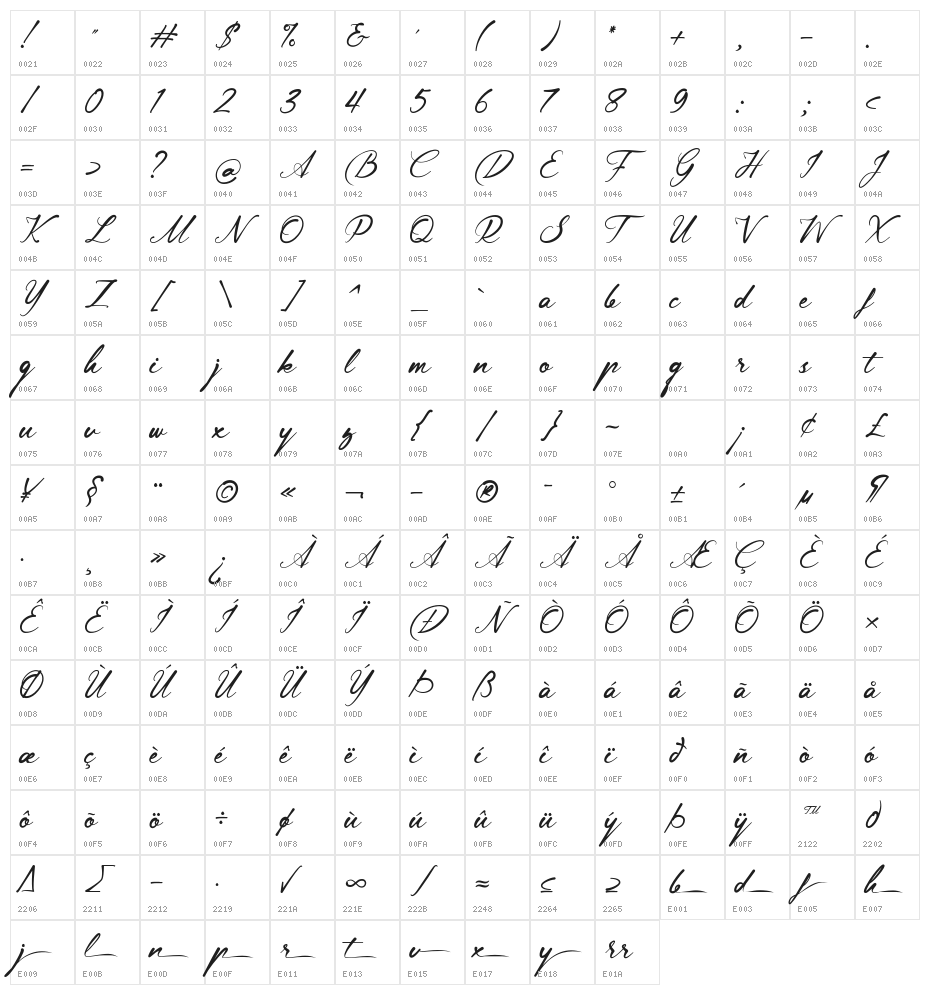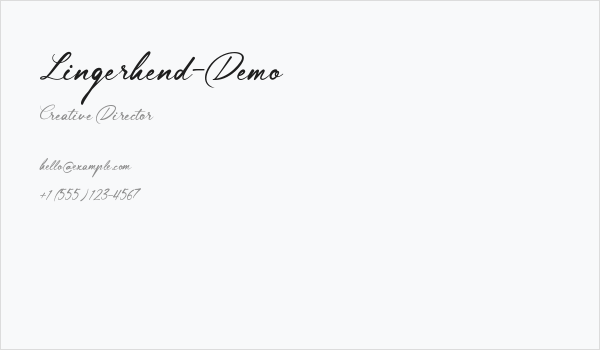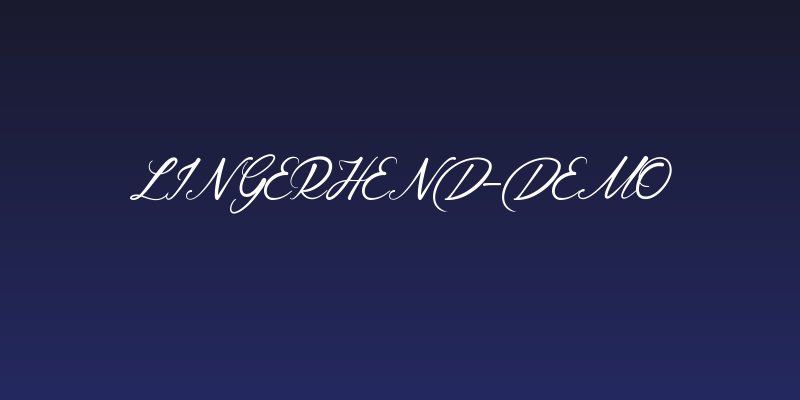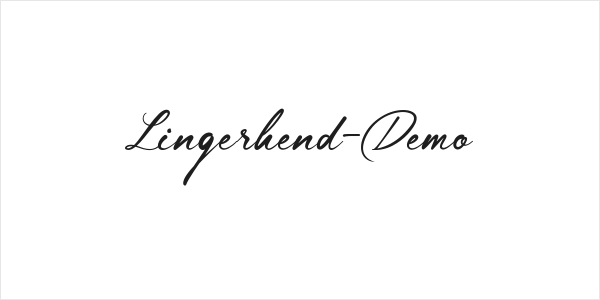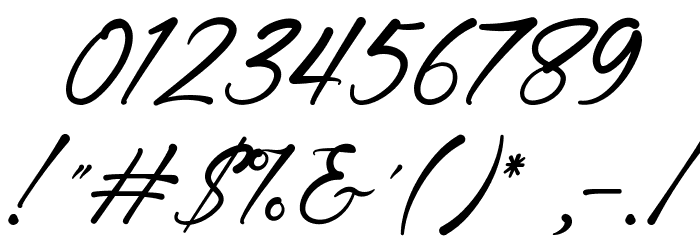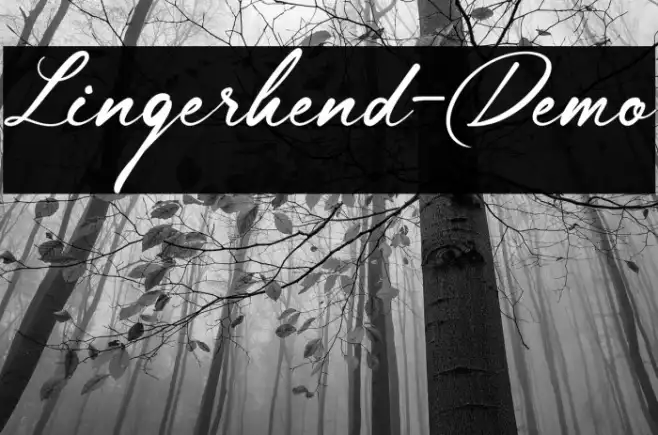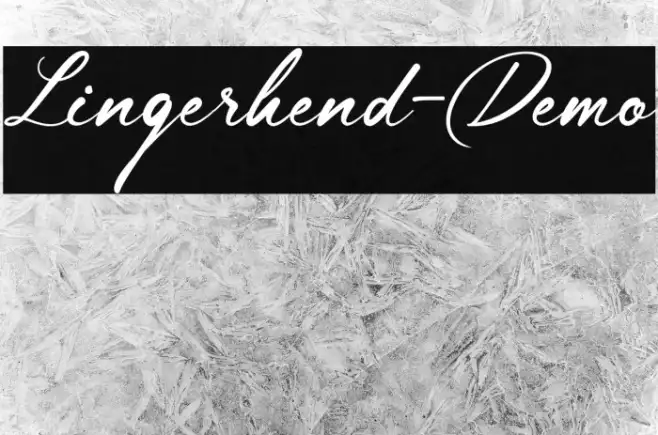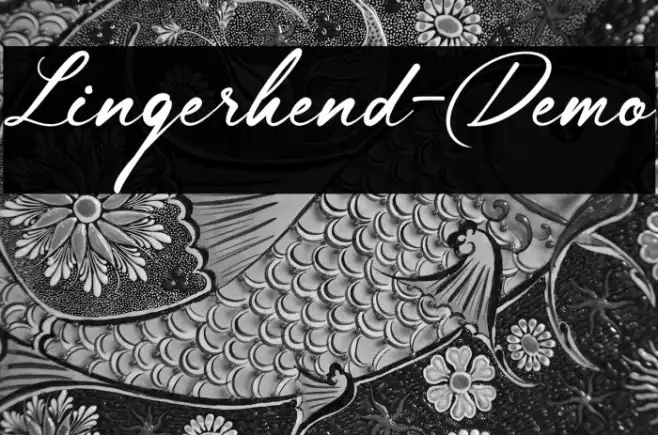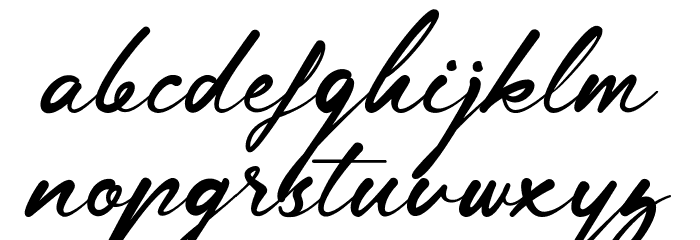
Lingerhend-Demo Font
Lingerhend-Demo Description
This elegant script font features a flowing, cursive style with a sophisticated and artistic flair. The uppercase letters are characterized by their sweeping curves and delicate loops, giving a sense of movement and grace. The lowercase letters maintain a consistent flow, with smooth connections between each character, enhancing the overall fluidity. The numerals are designed with a similar elegance, ensuring they complement the alphabet seamlessly. Special characters are crafted with the same attention to detail, making them suitable for decorative purposes. The font's overall appearance is both classic and modern, making it versatile for various design needs.
| Overall Style | Elegant, Classic |
| Proposed Projects | Ideal for wedding invitations, elegant branding, greeting cards, and high-end product packaging. |